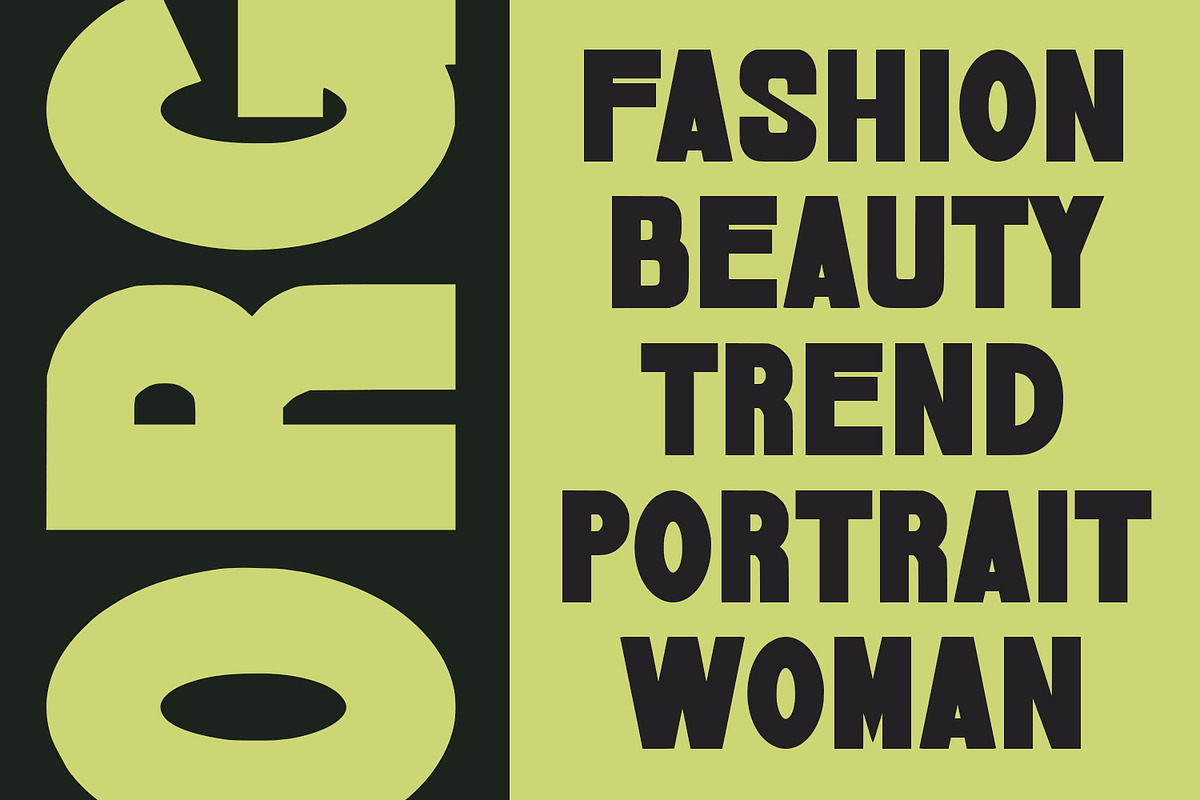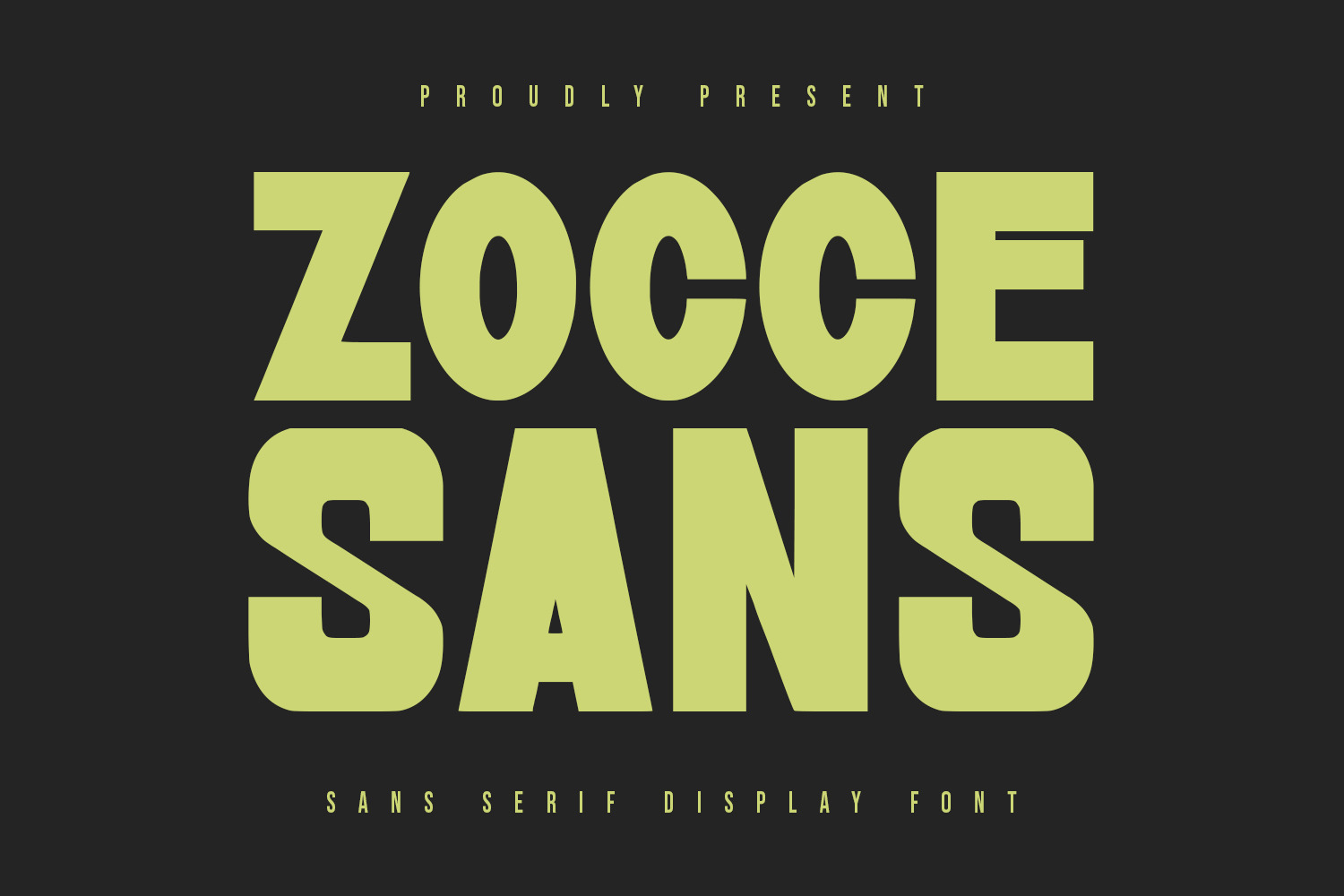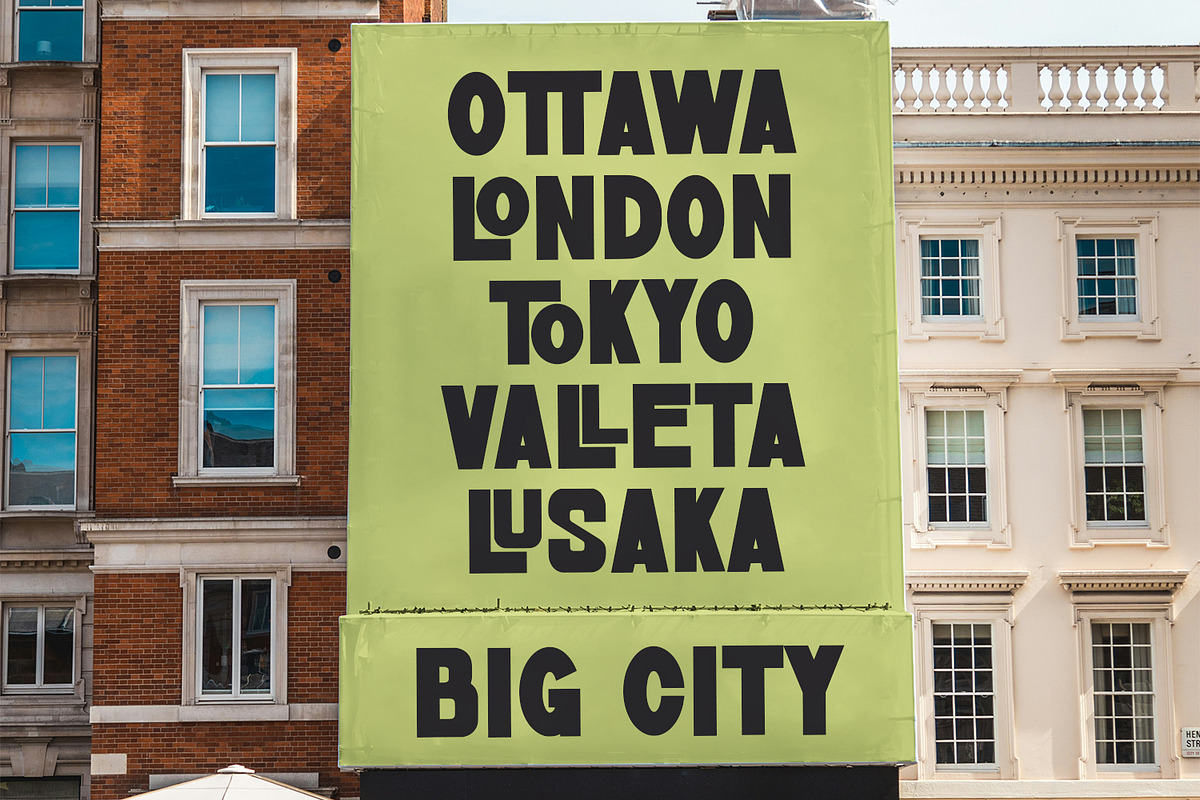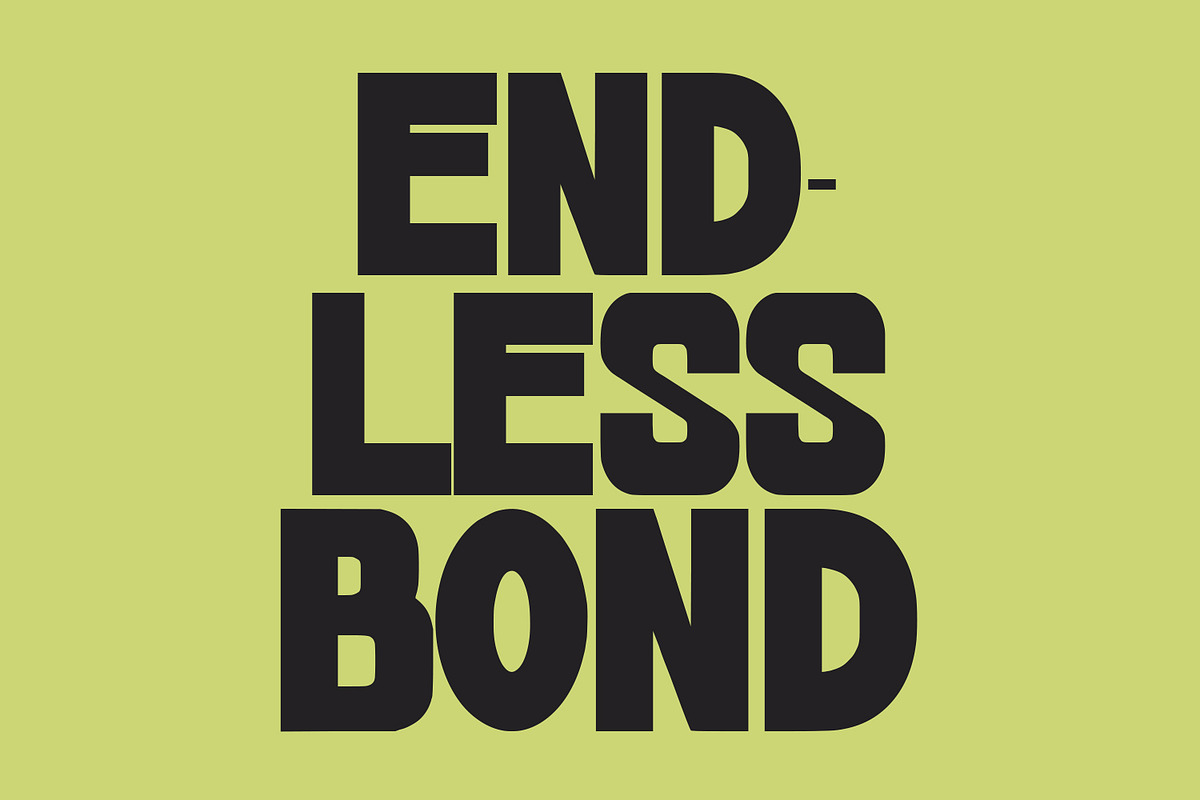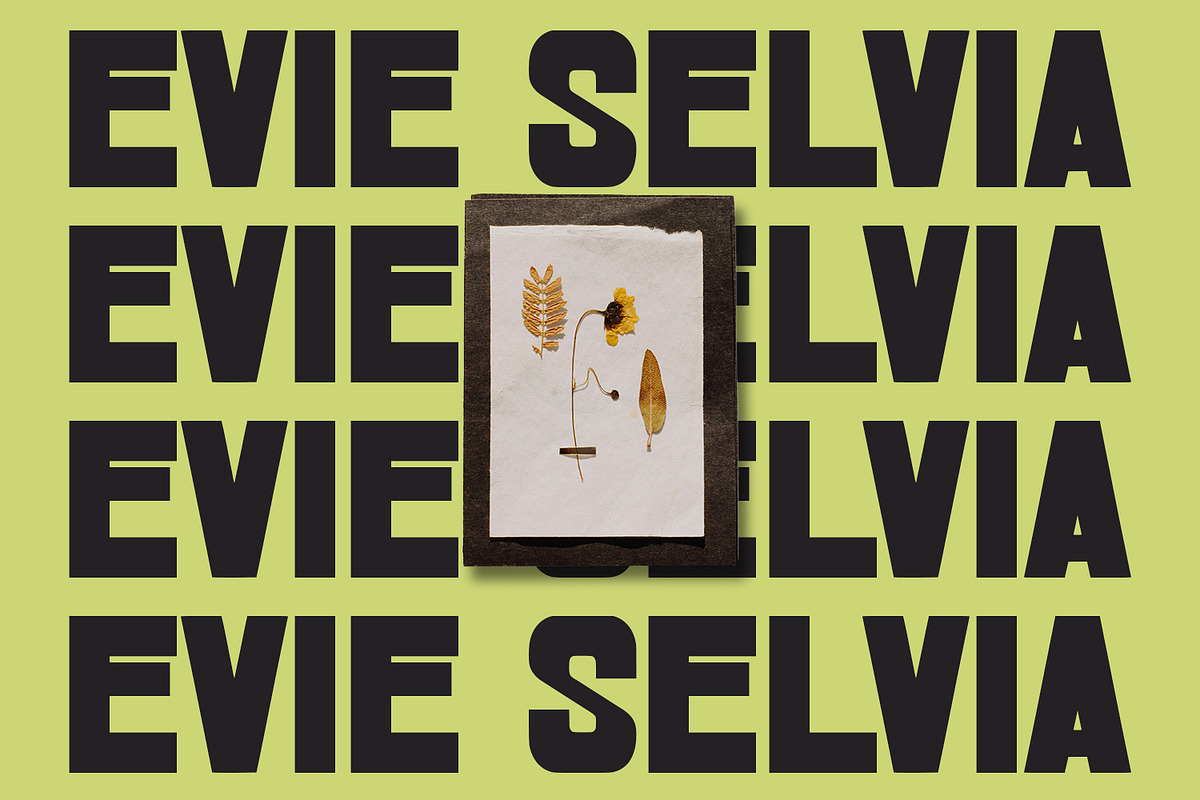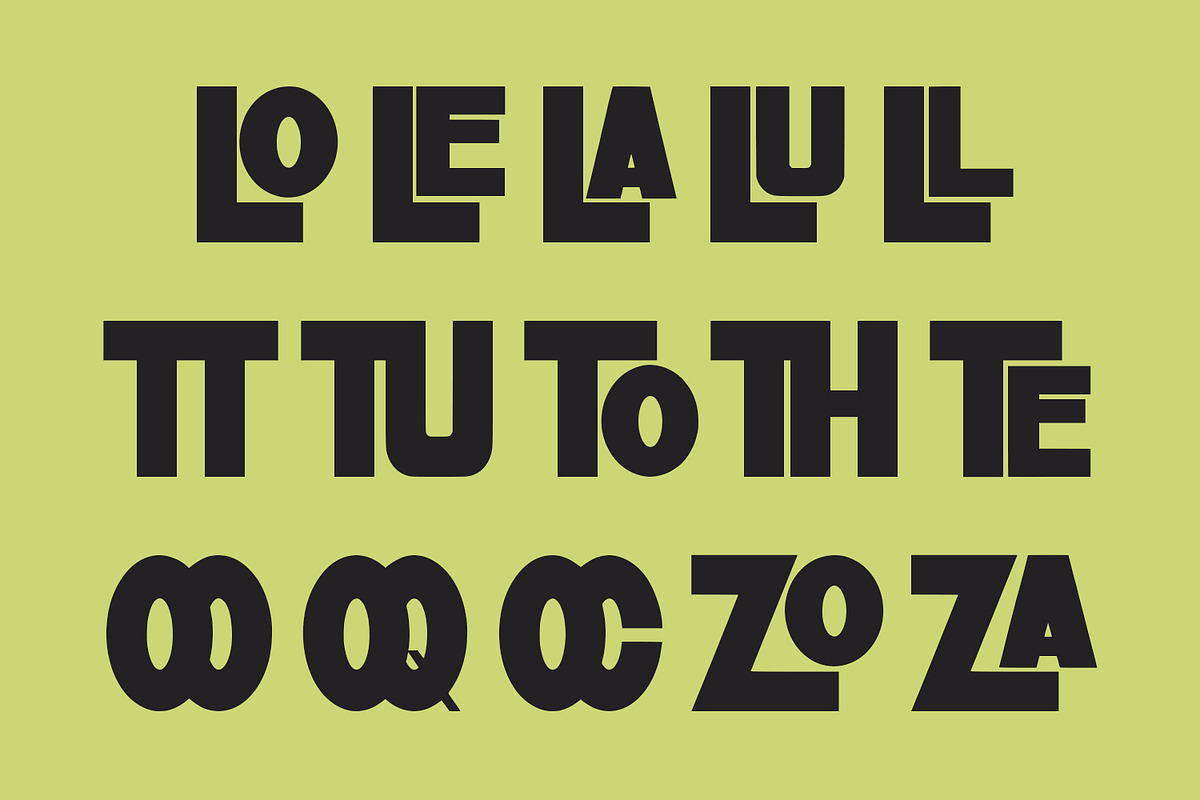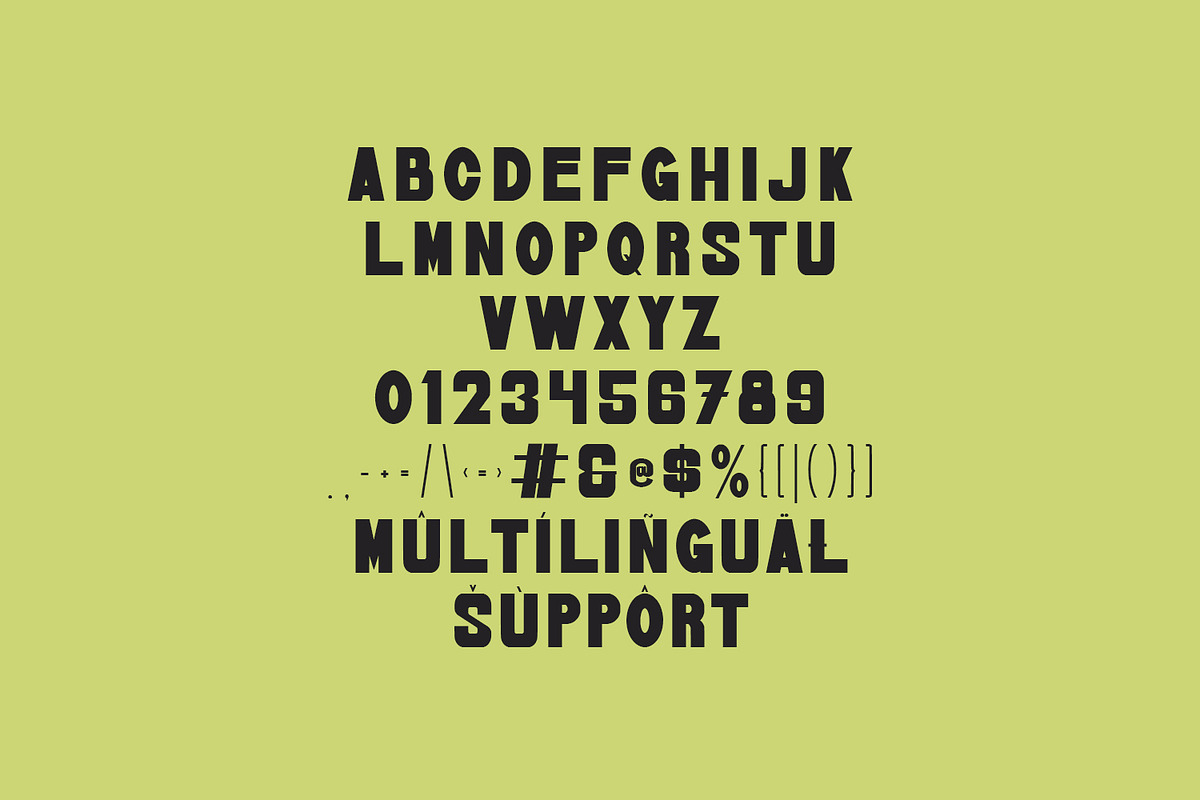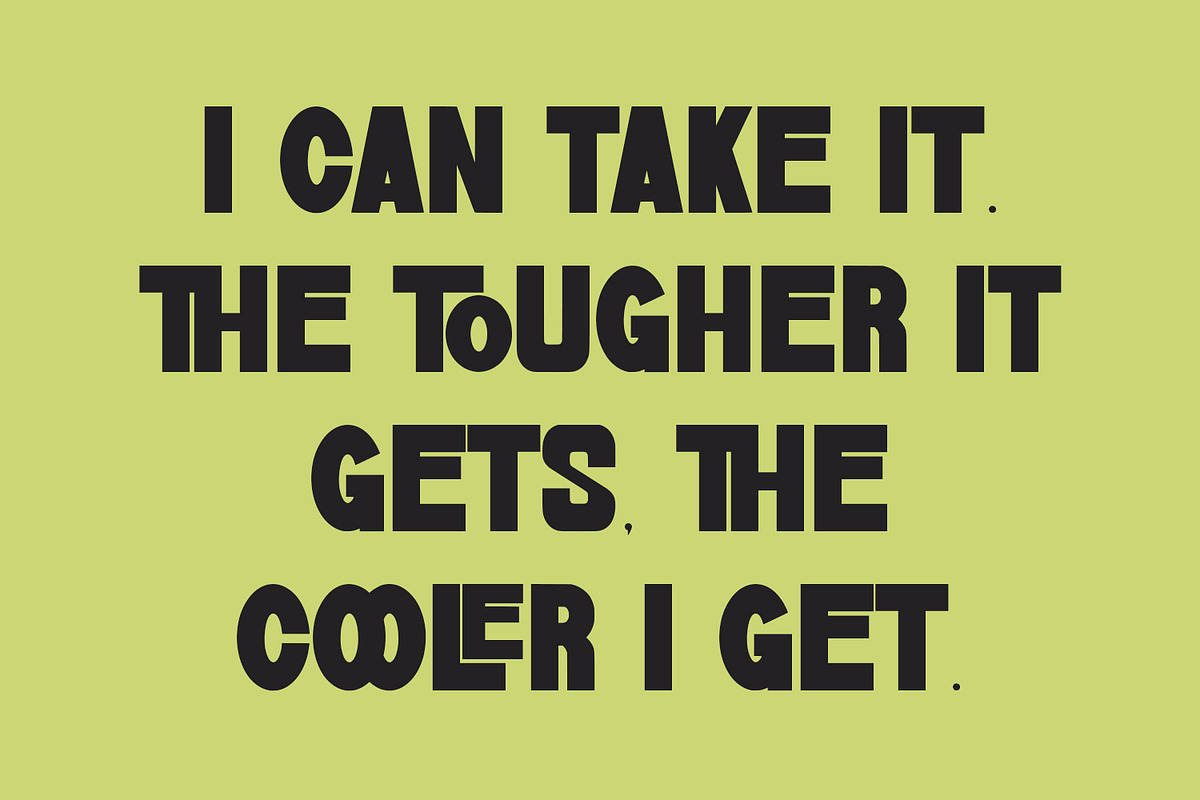
Zocce Sans Serif Display Font
Zocce is a fancy modern condensed all Caps sans serif font. With bold tall and sharp stroke, fun character with a bit of ligatures. To give you an extra creative work. Zocce font support multilingual more than 100+ language. This font is good for logo design, Social media, Movie Titles, Books Titles, a short text even a long text letter and good for your secondary text font with sans or serif. Make a stunning work with Zocce font.